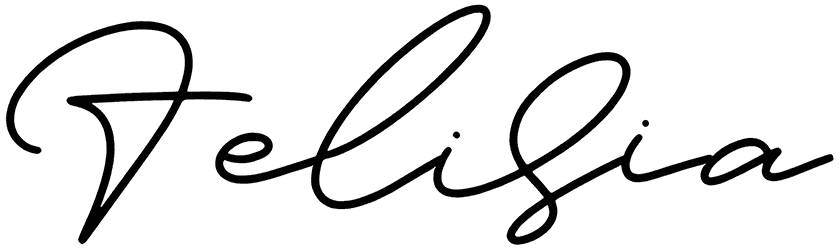
Felisia Font
Do you want some letterform that has a natural form with a chic vibe? As a nice offer, this handwritten font can bring such a visual to your project. Felisia font is a bit unreadable, but its stylish personality is going to capture a lot of people. For a formal business card, a realistic signature, or many other designs, this signature font will be an amazing pickup.